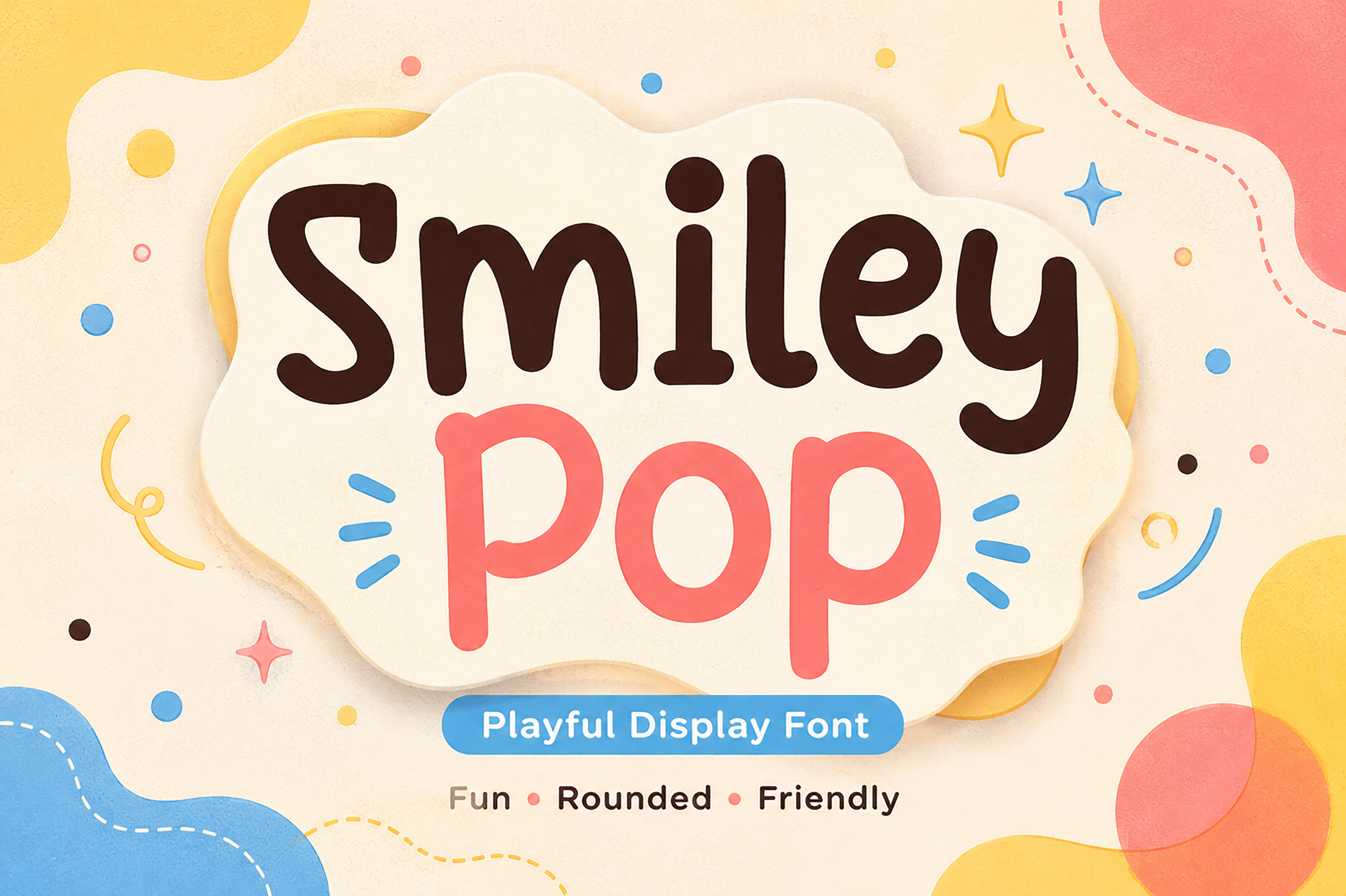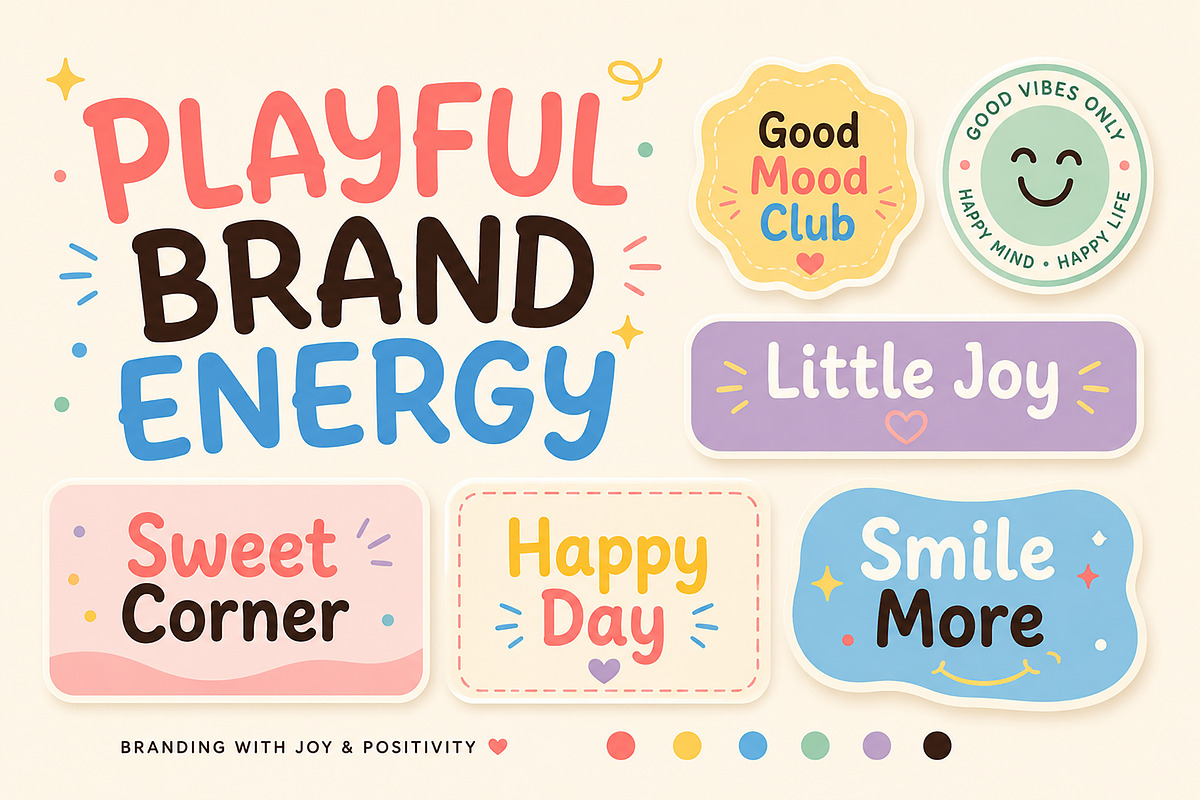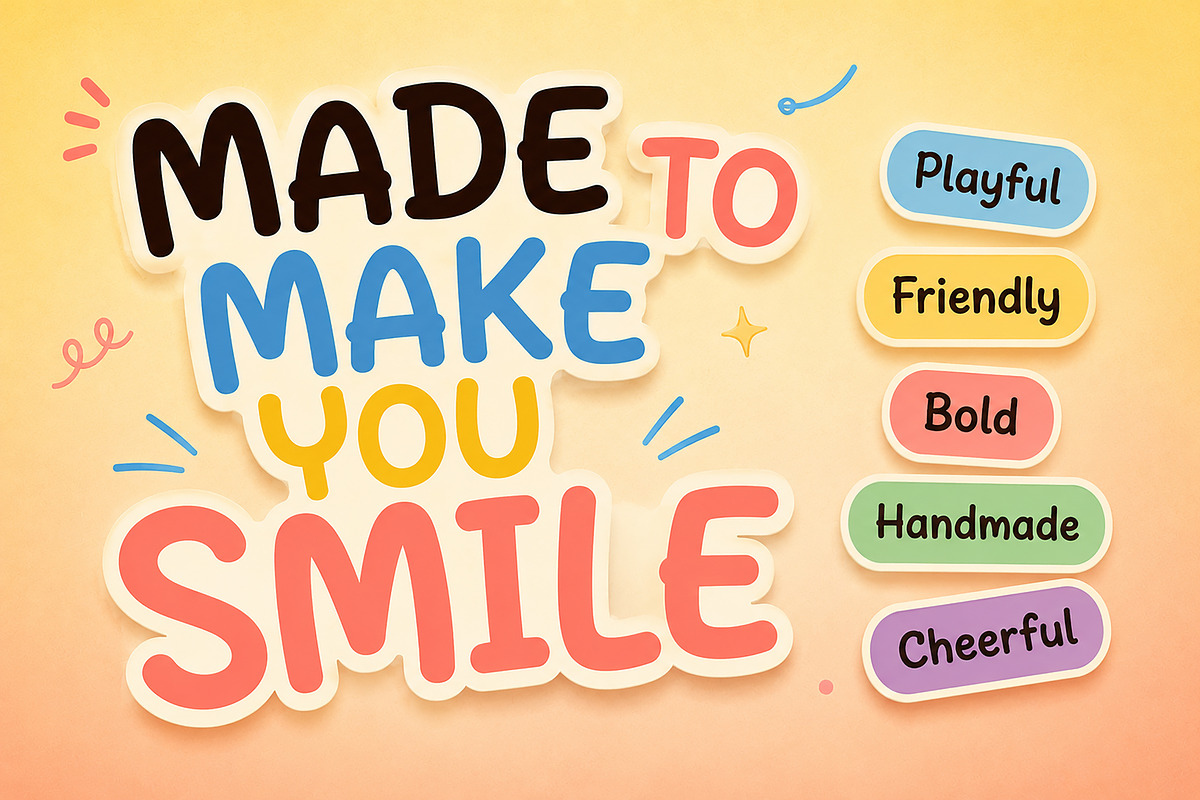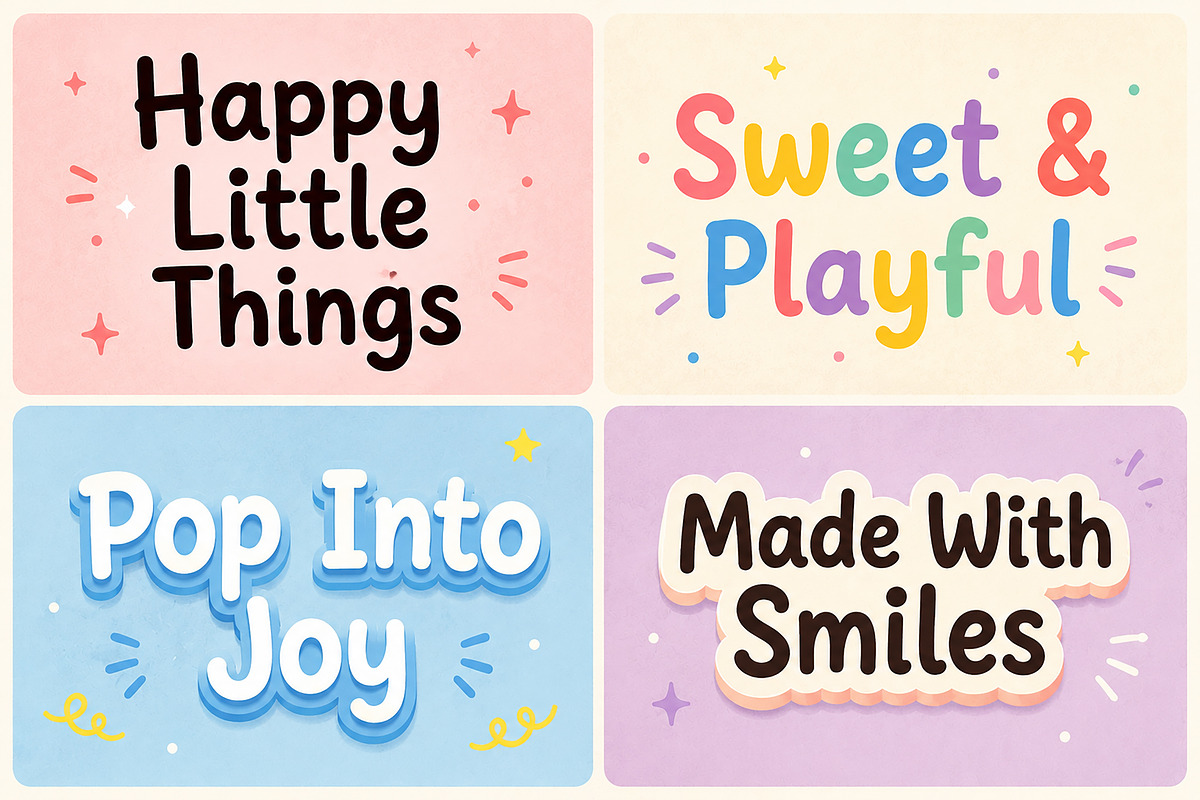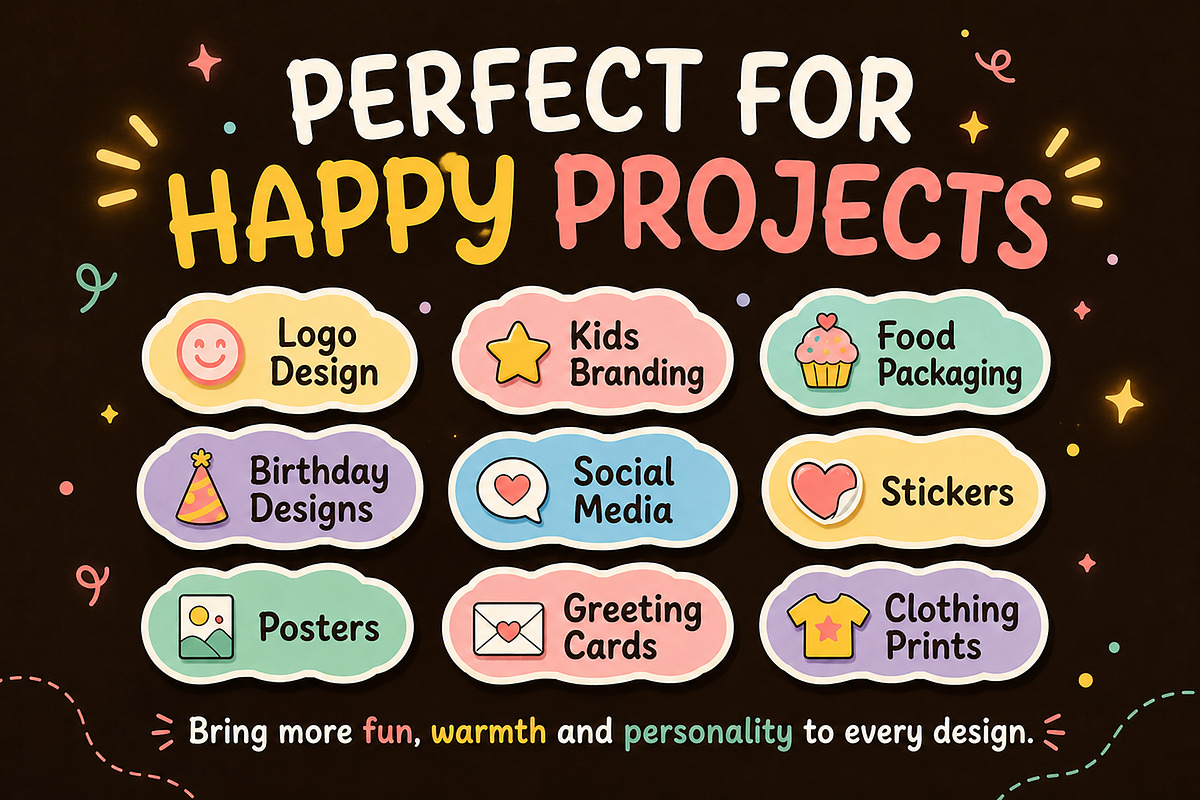
Smiley Pop – Playful Display Font
Bring happiness and charm to your creative projects with Smiley Pop, a fun and playful display font featuring soft rounded edges and a friendly handwritten personality. Designed to make every word feel warm, cheerful, and inviting, this font is perfect for creating eye-catching designs that instantly stand out.
Whether you're designing for kids, playful brands, social media, packaging, or party-themed projects, Smiley Pop adds a joyful and modern touch with its clean, bold, and easy-to-read letterforms.
Its cute aesthetic and handcrafted feel make it a perfect choice for designers looking to create memorable and fun visual identities.
Kids Branding
Food Packaging
Bakery & Café Branding
Candy & Snack Packaging
Birthday Invitations
Greeting Cards
Stickers
Posters
T-Shirt Designs
YouTube Thumbnails
Classroom Materials
Printable Designs
Quotes
Cricut Projects
Craft Projects
Merchandising
Why You'll Love Smiley Pop
Cute and playful personality
Smooth rounded letterforms
Clean and easy to read
Great for branding and packaging
Perfect for children's designs
Friendly handmade appearance
Modern and versatile style